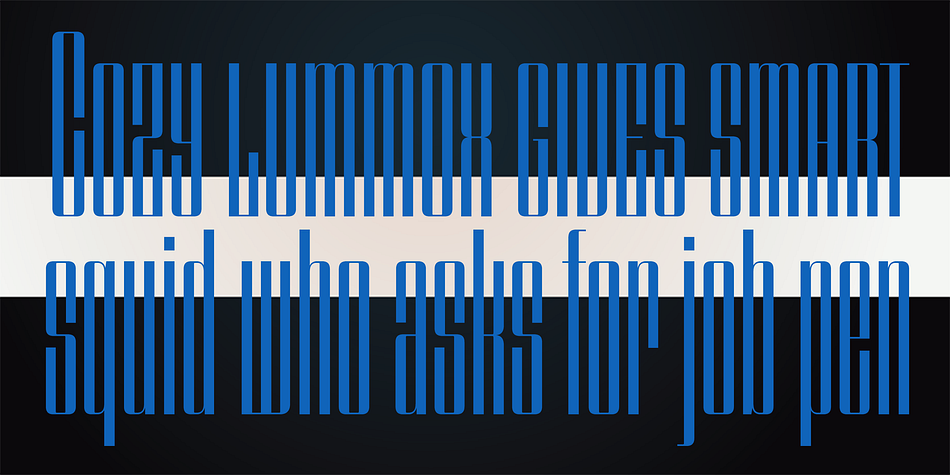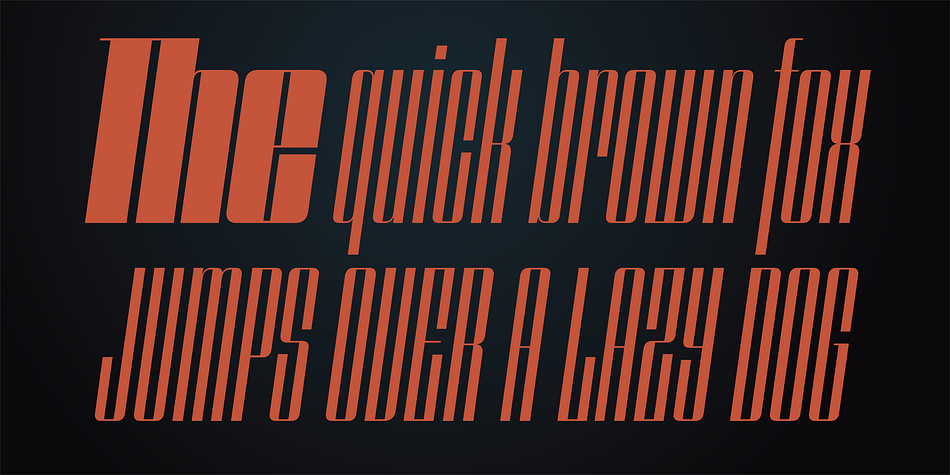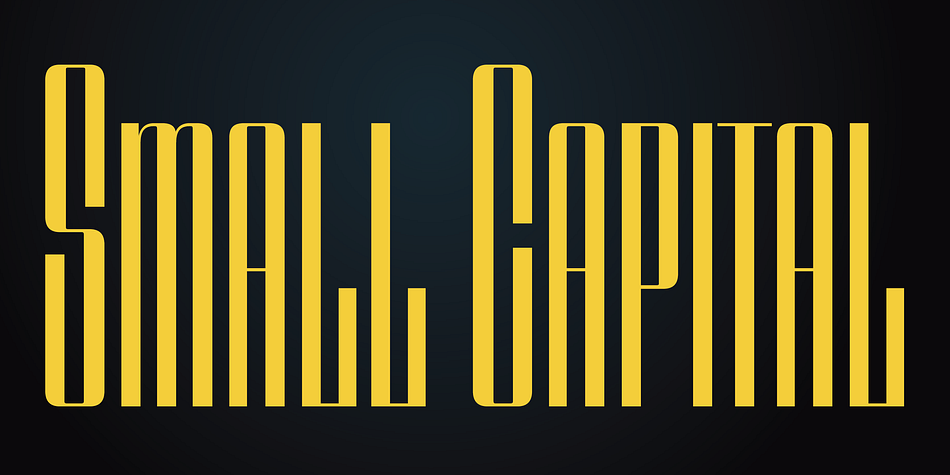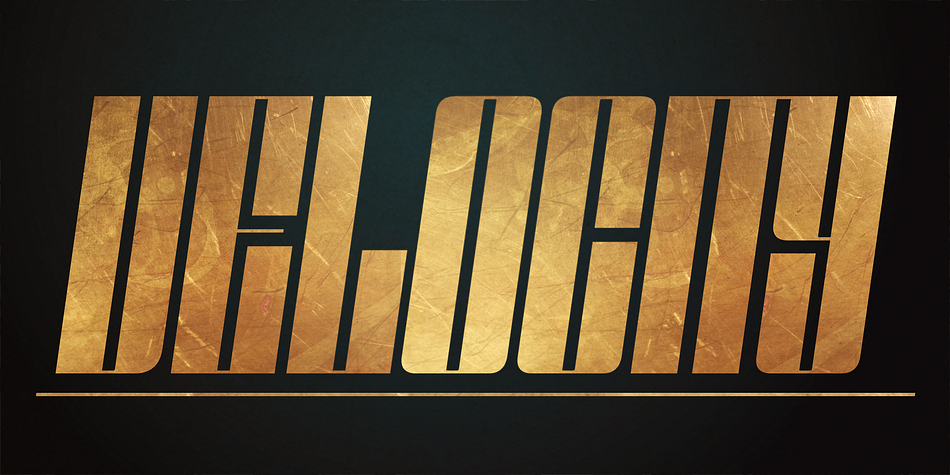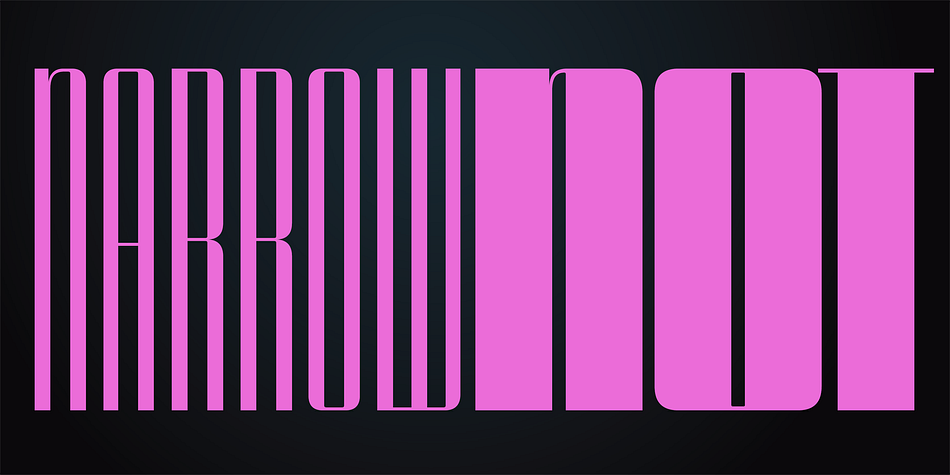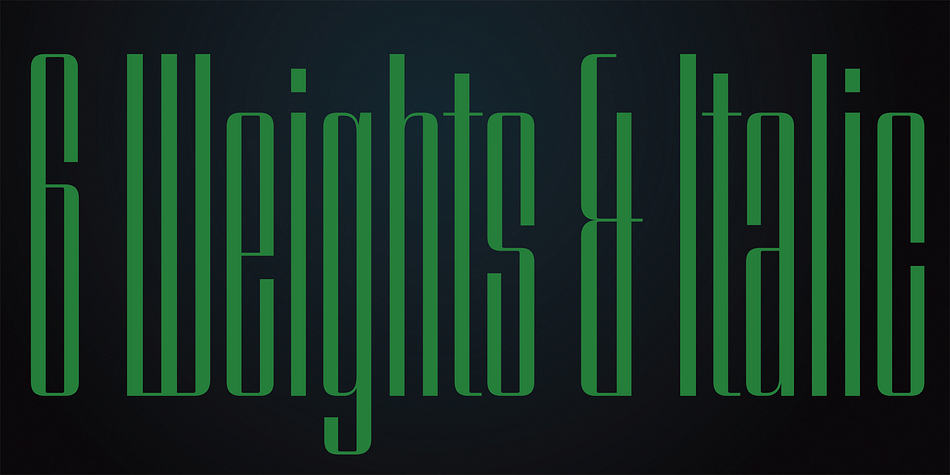
Speedometer is a display font family. This typeface has twelve styles and was published by Dharma Type.
“Speedometer is derived from Dimensions font family that is most narrow and black font for titling and logo.
This speedometer is more elegant by its contrast between the thickness of stem and thinness of the arms than Dimensions.
This contrast makes more vigorous and speedy impressions too.
All 6 weights and italics have upper and lower cases, accented characters and small capital glyphs that can be used with OpenType smcp feature.